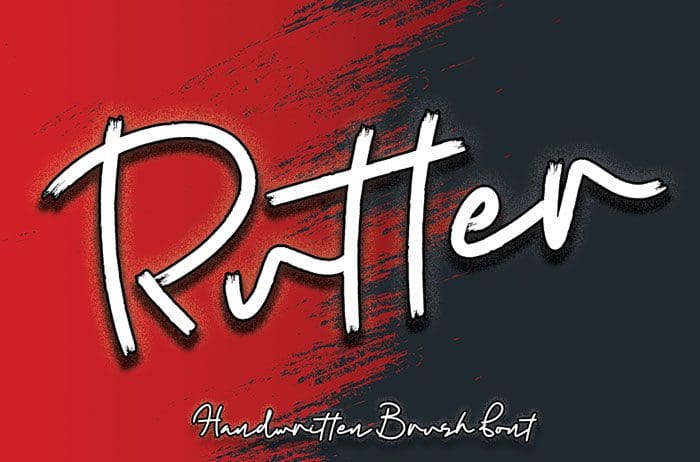
Free Rutter Brush Font
Rutter Brush Font
Free Rutter brush font. It features extra attention to quick strokes and sharp details. The style in this font include: Regular. Designed this font by Thomas Aradea. You can also search more free Brush Fonts. Thanks!